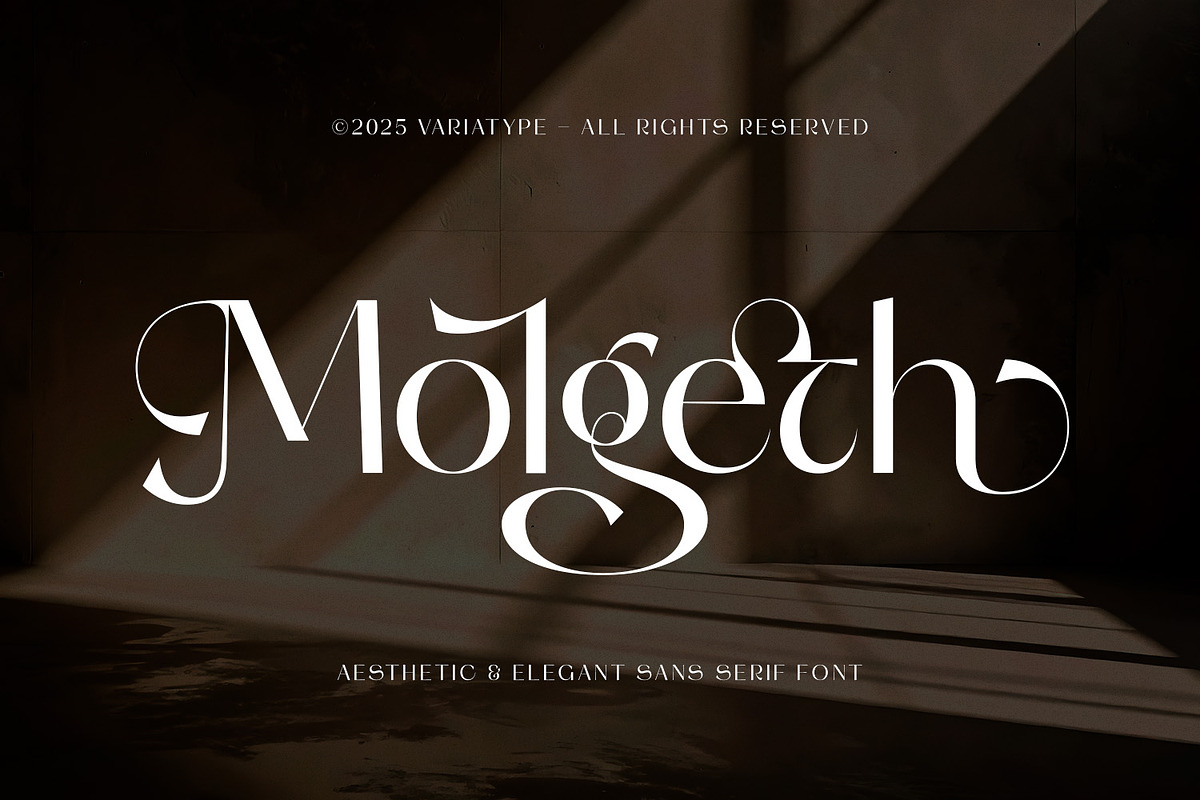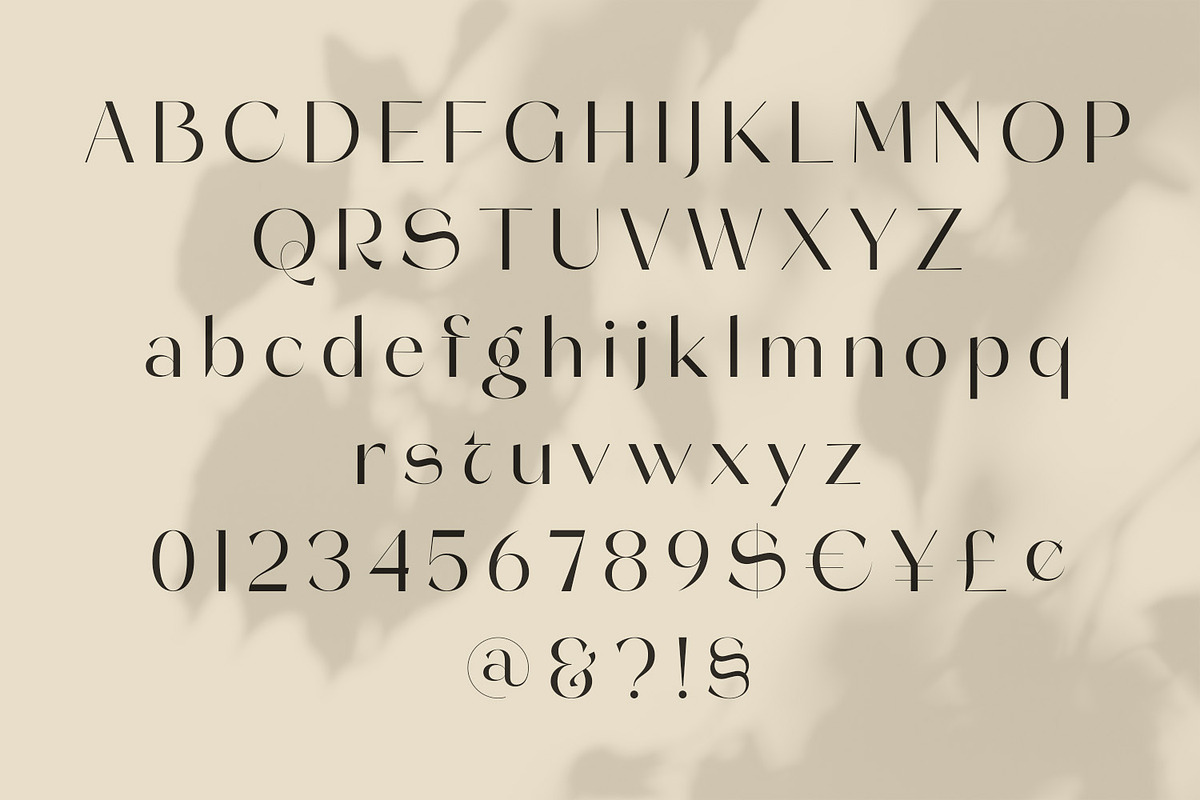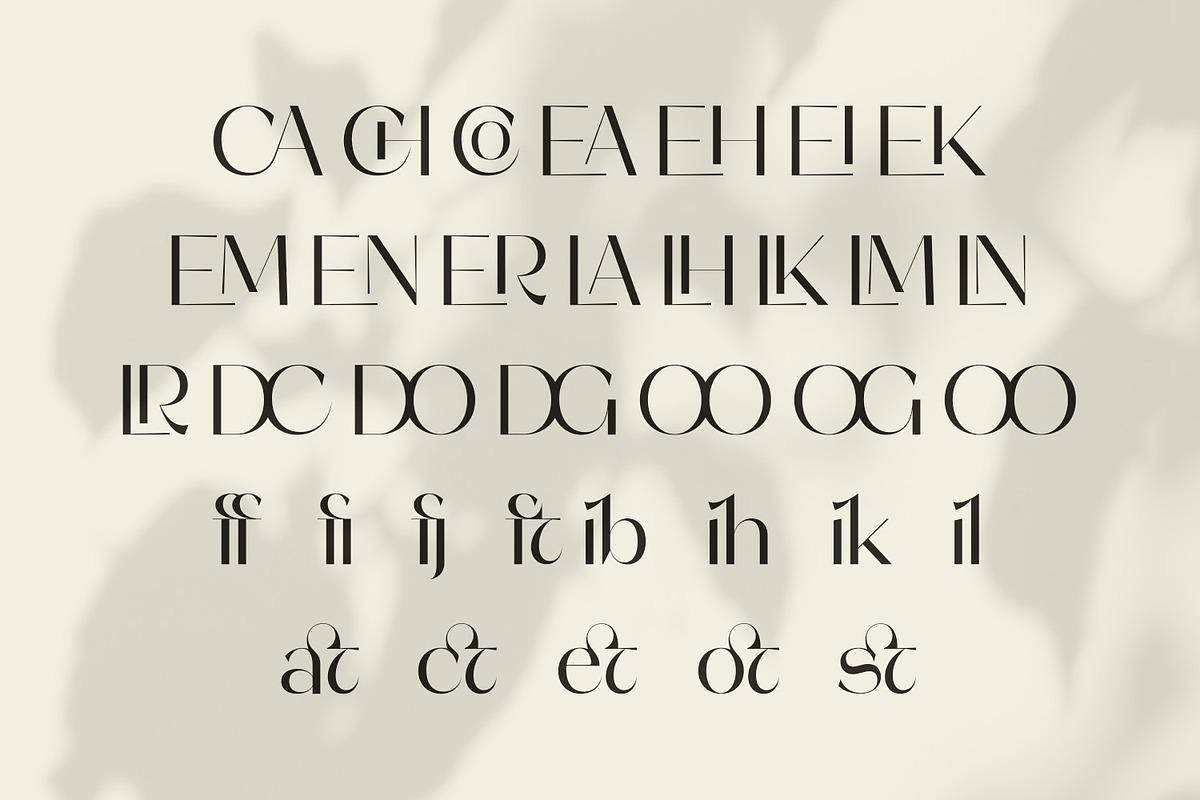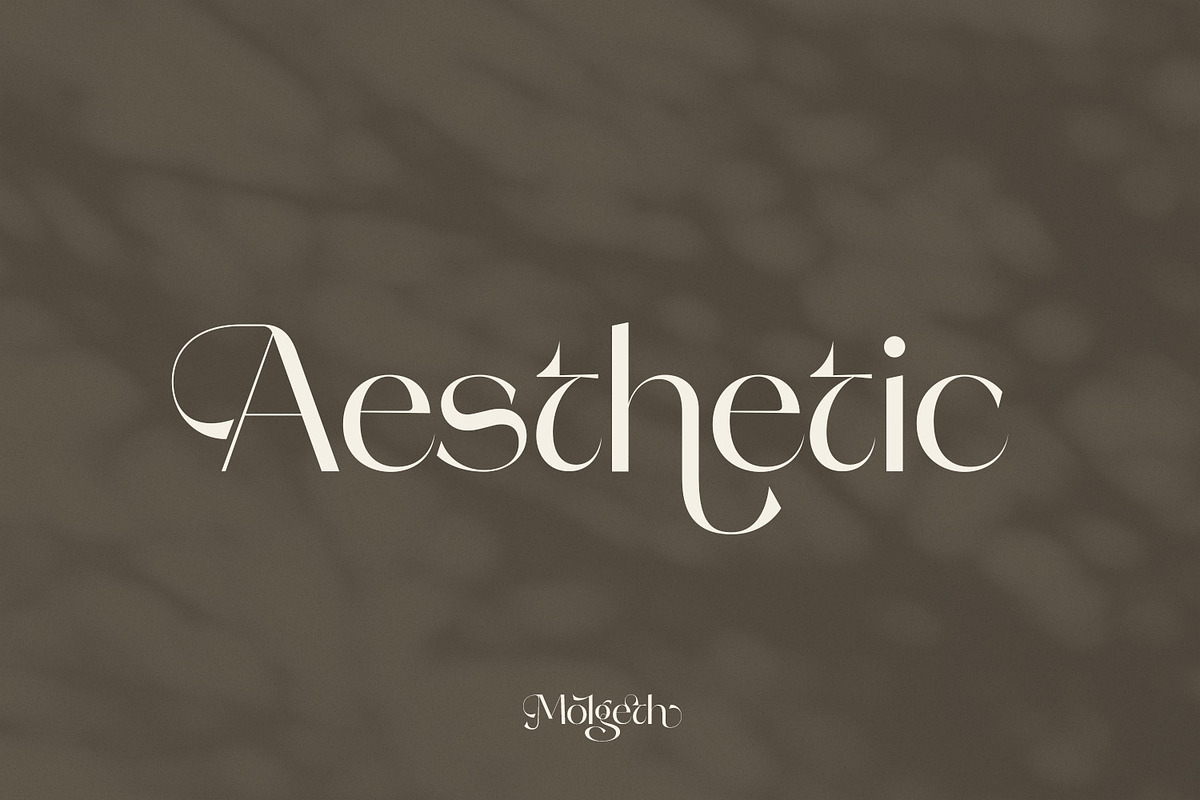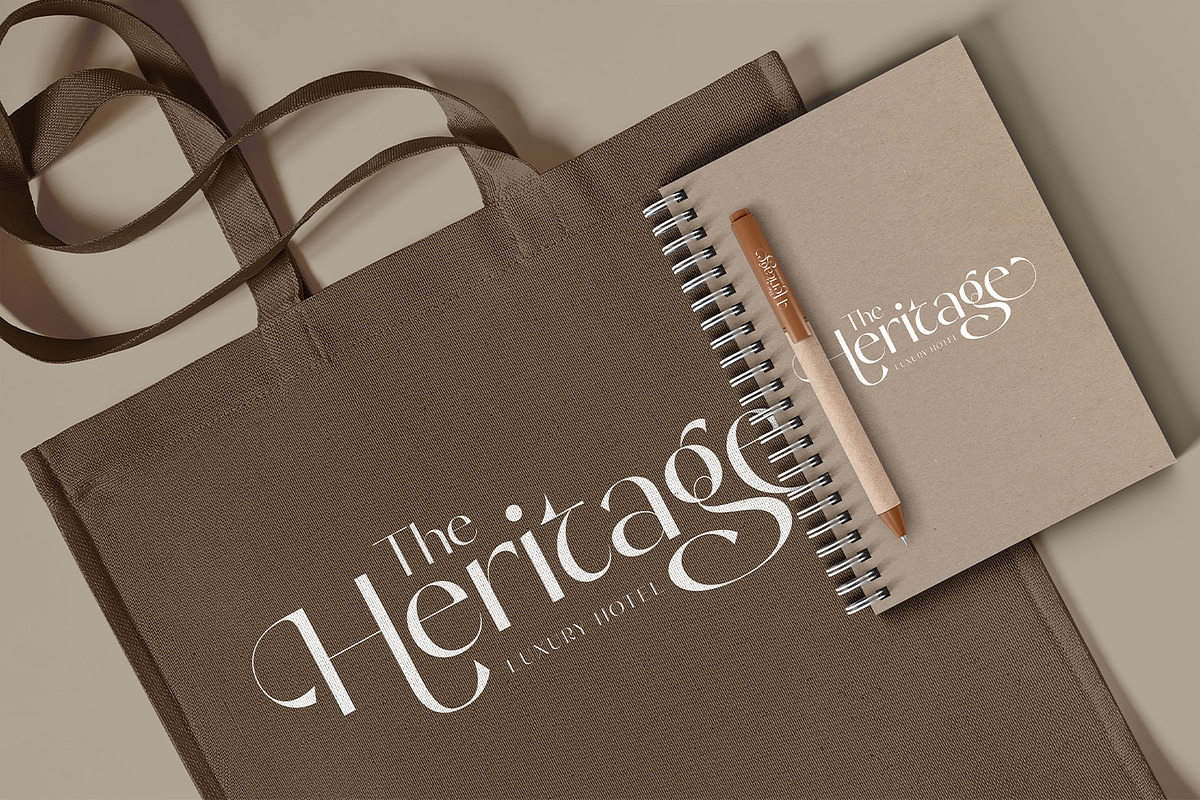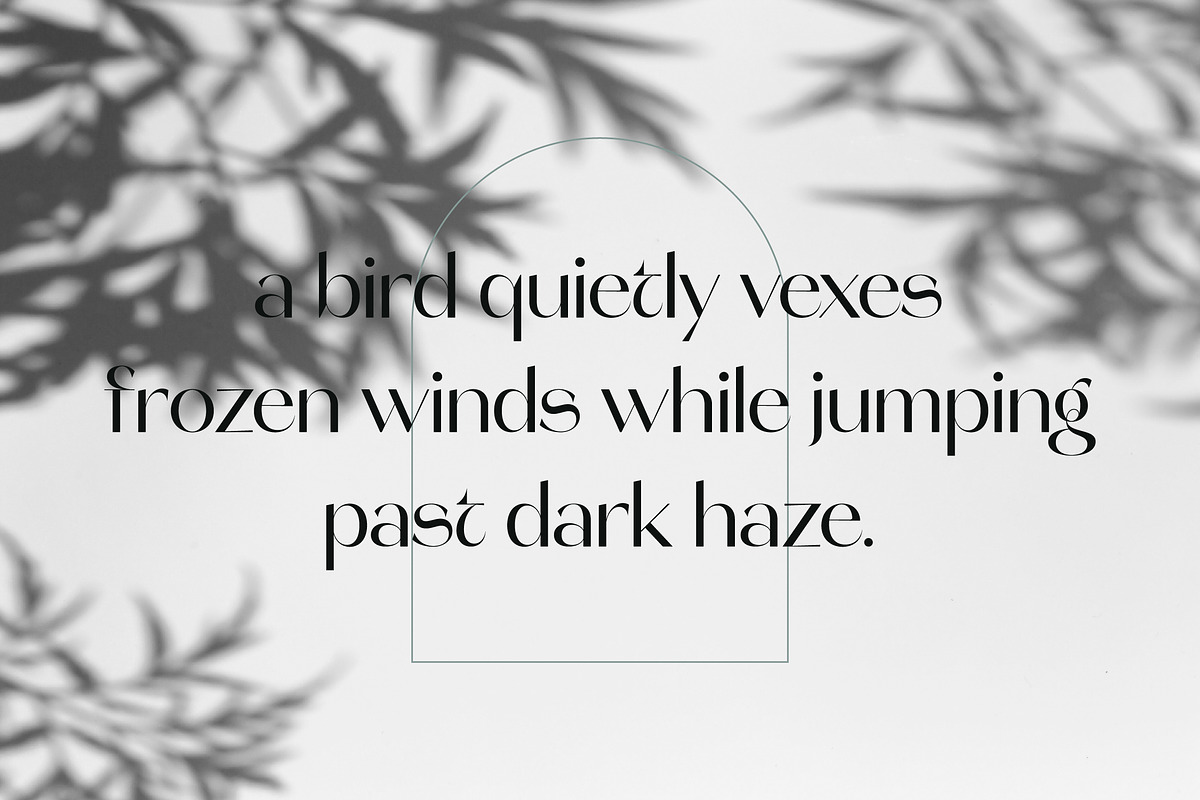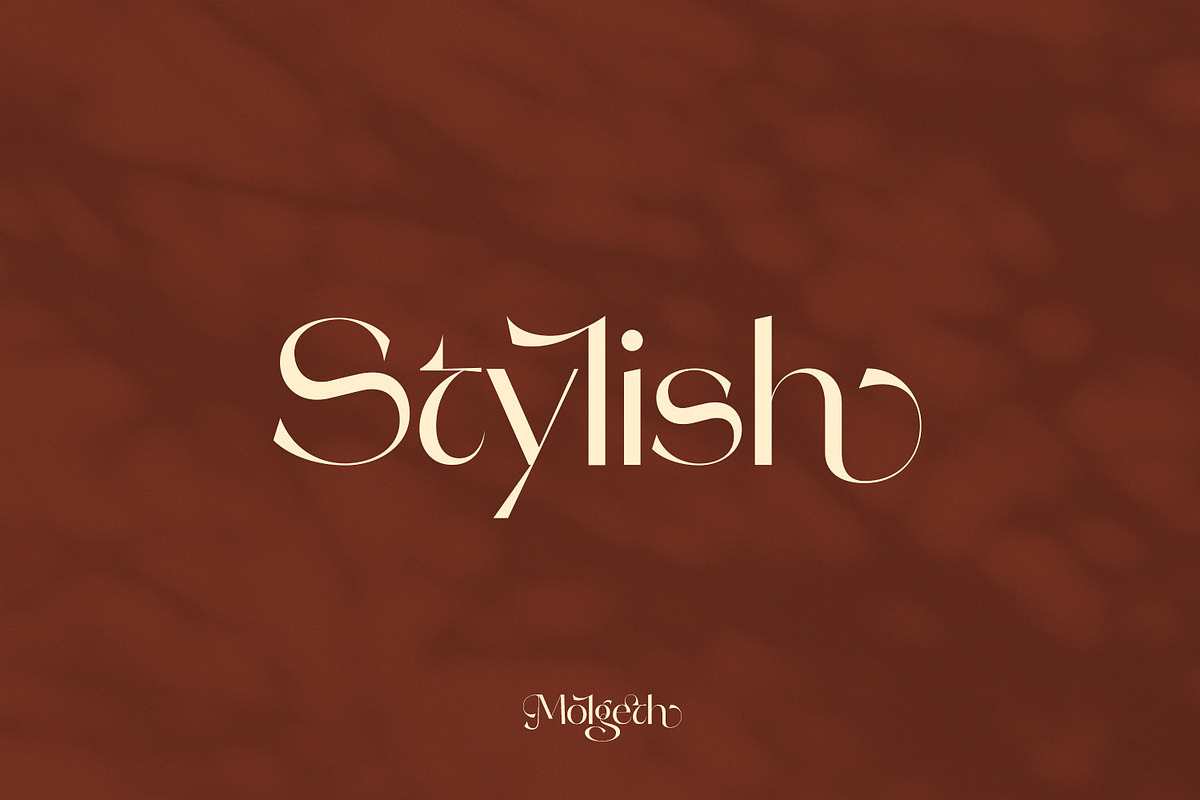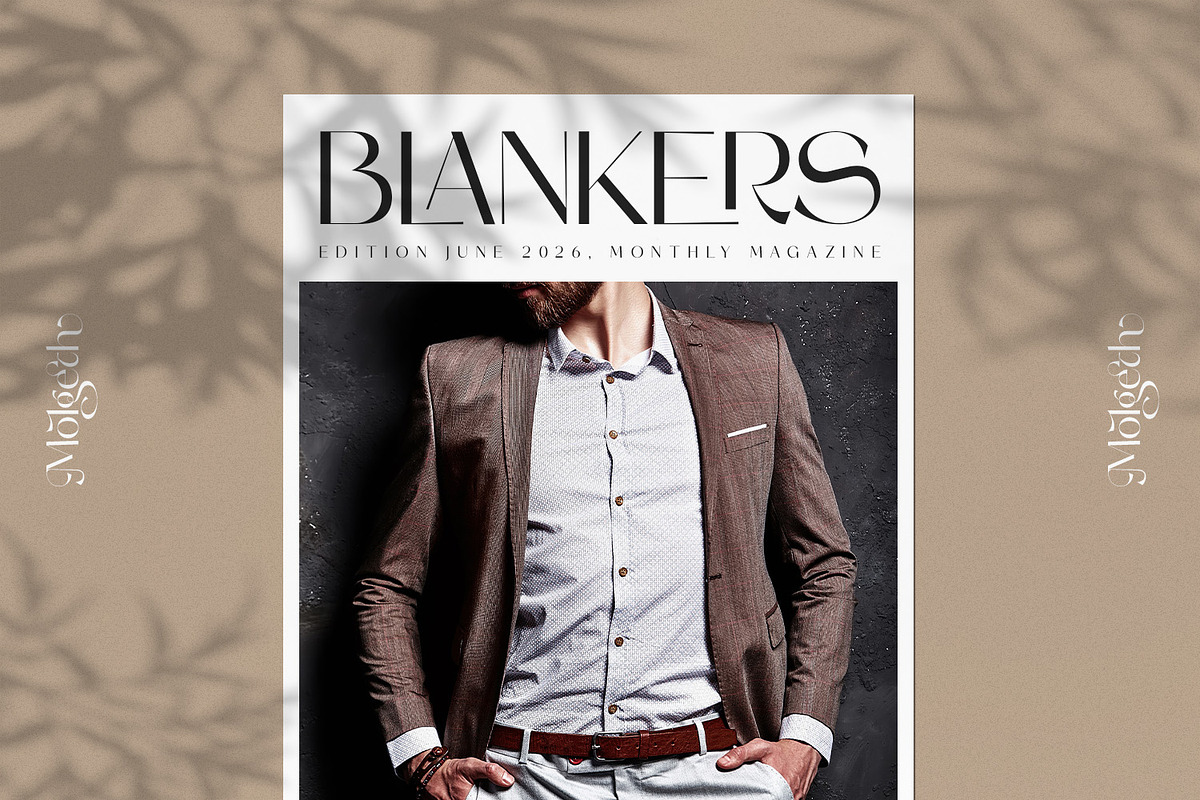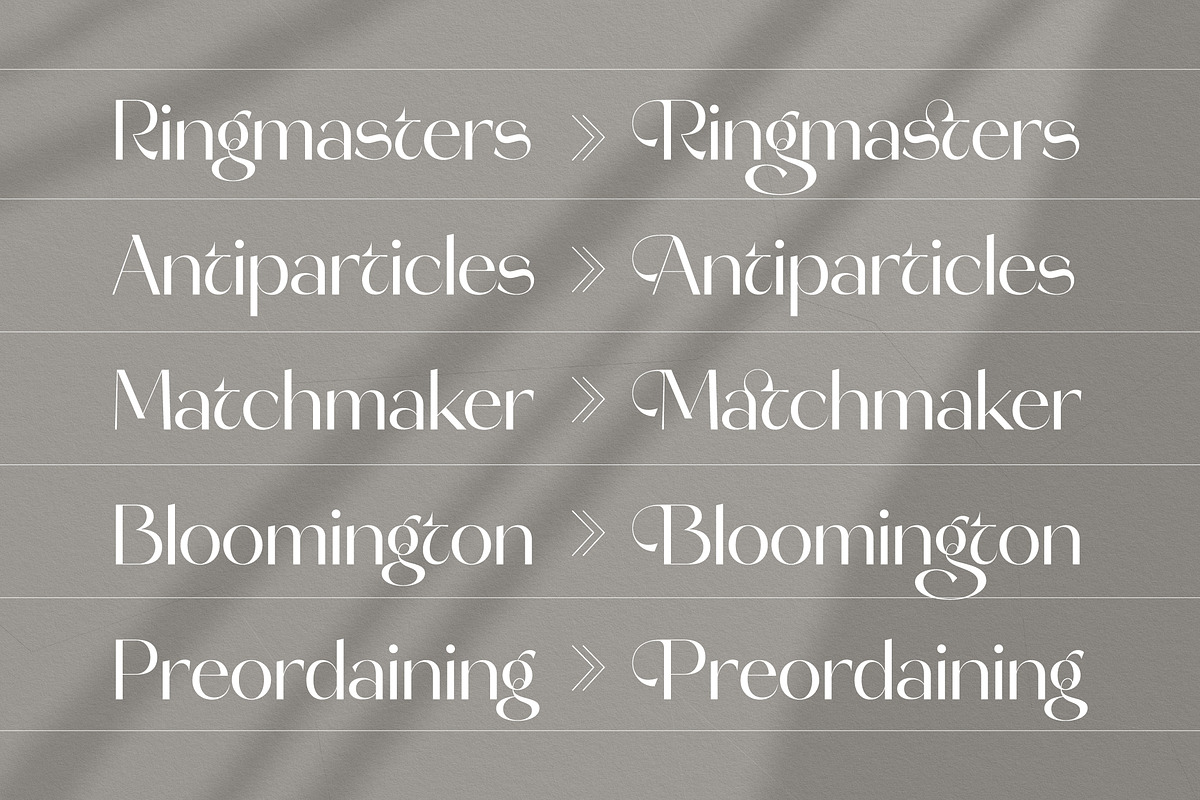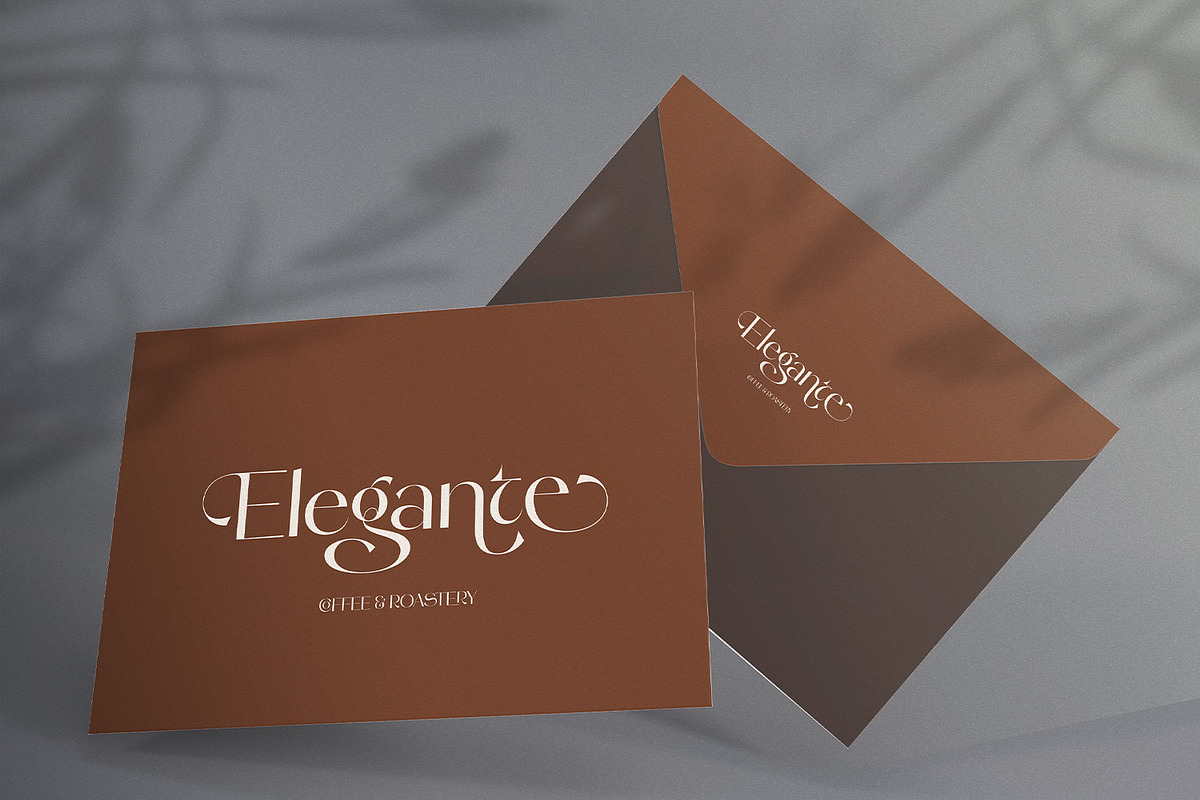
Molgeth - Aesthetic Sans Serif
Molgeth is an elegant high-contrast sans serif typeface that blends modern minimalism with refined luxury. Designed with graceful curves, sharp transitions, and sophisticated proportions, Molgeth feels like a contemporary sans with a subtle serif soul. Rich in stylistic alternates and smooth ligatures, this typeface delivers a premium aesthetic ideal for high-end branding, fashion logos, editorial headlines, beauty products, and upscale digital designs. Molgeth brings a calm yet confident presence, making every word look polished and visually captivating.